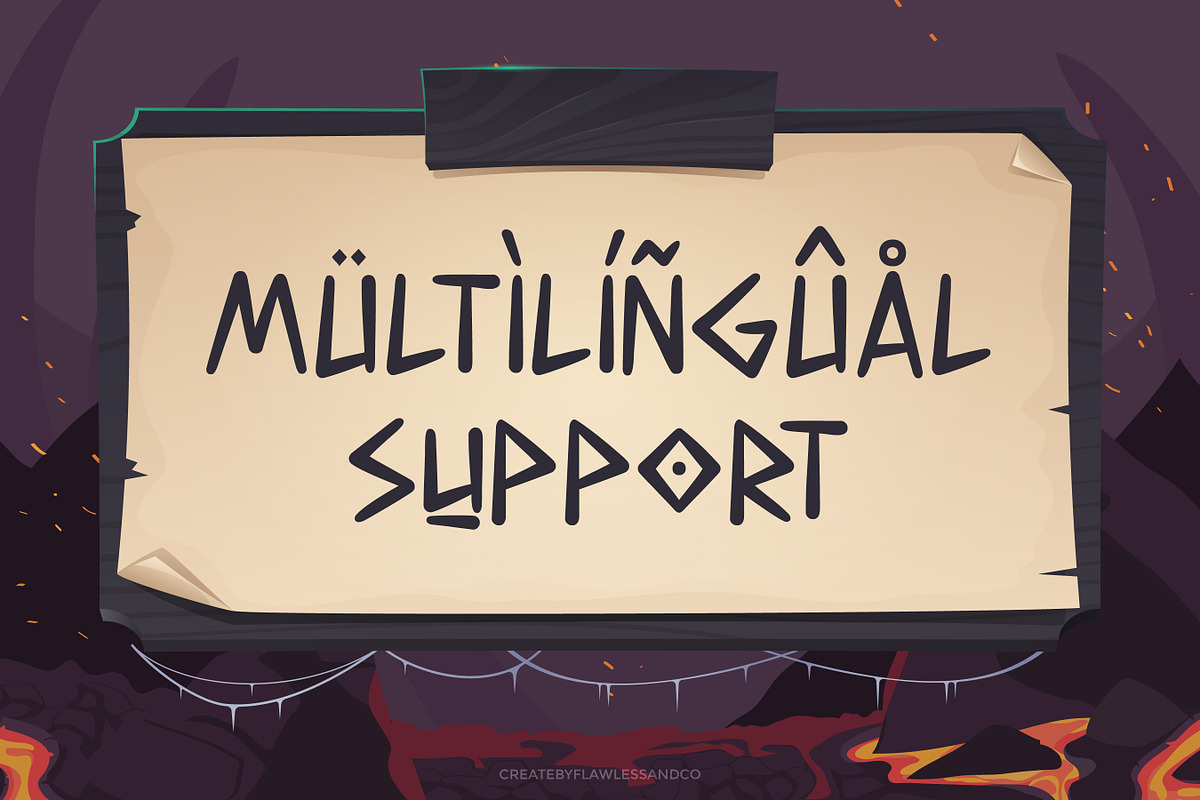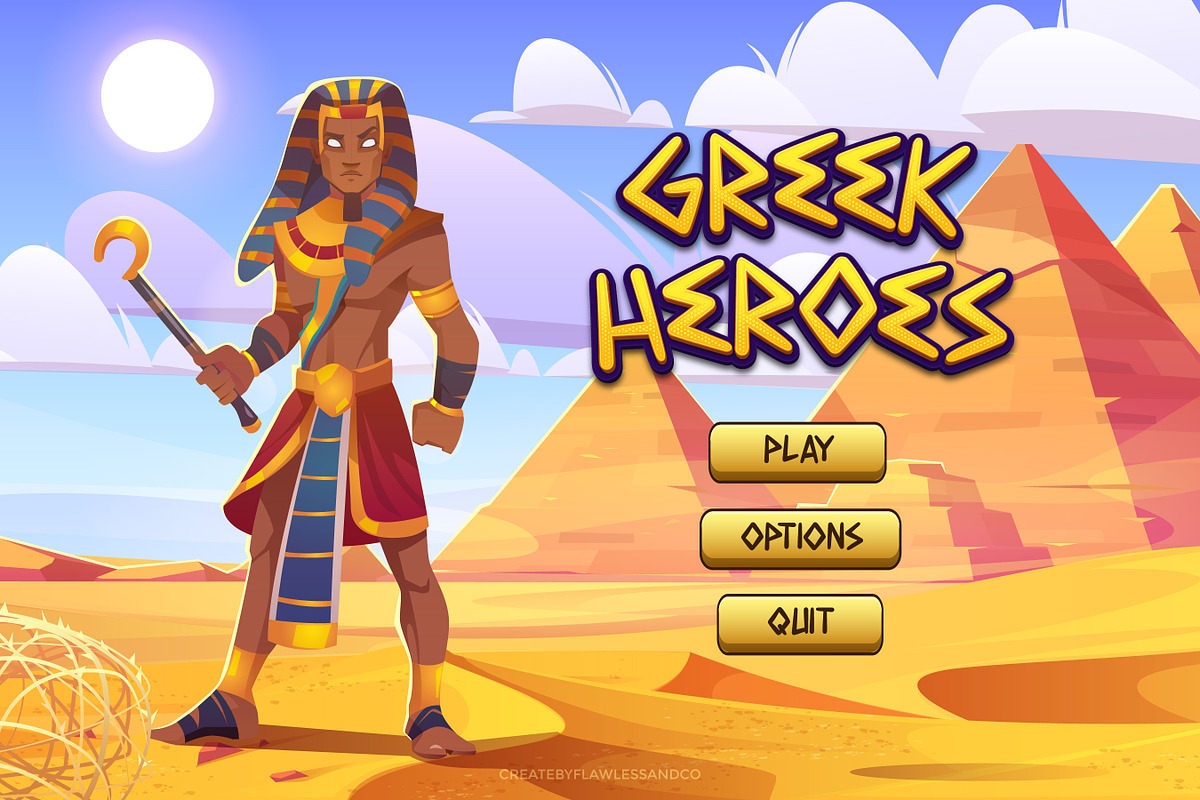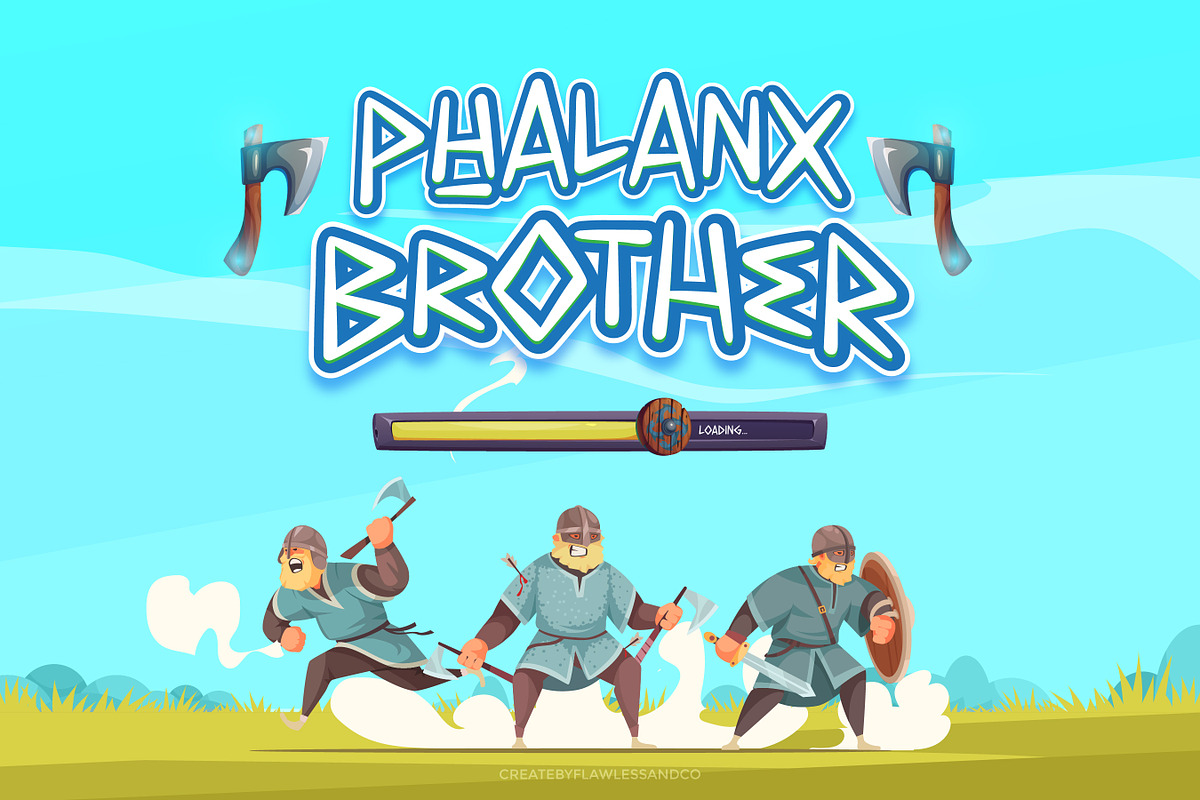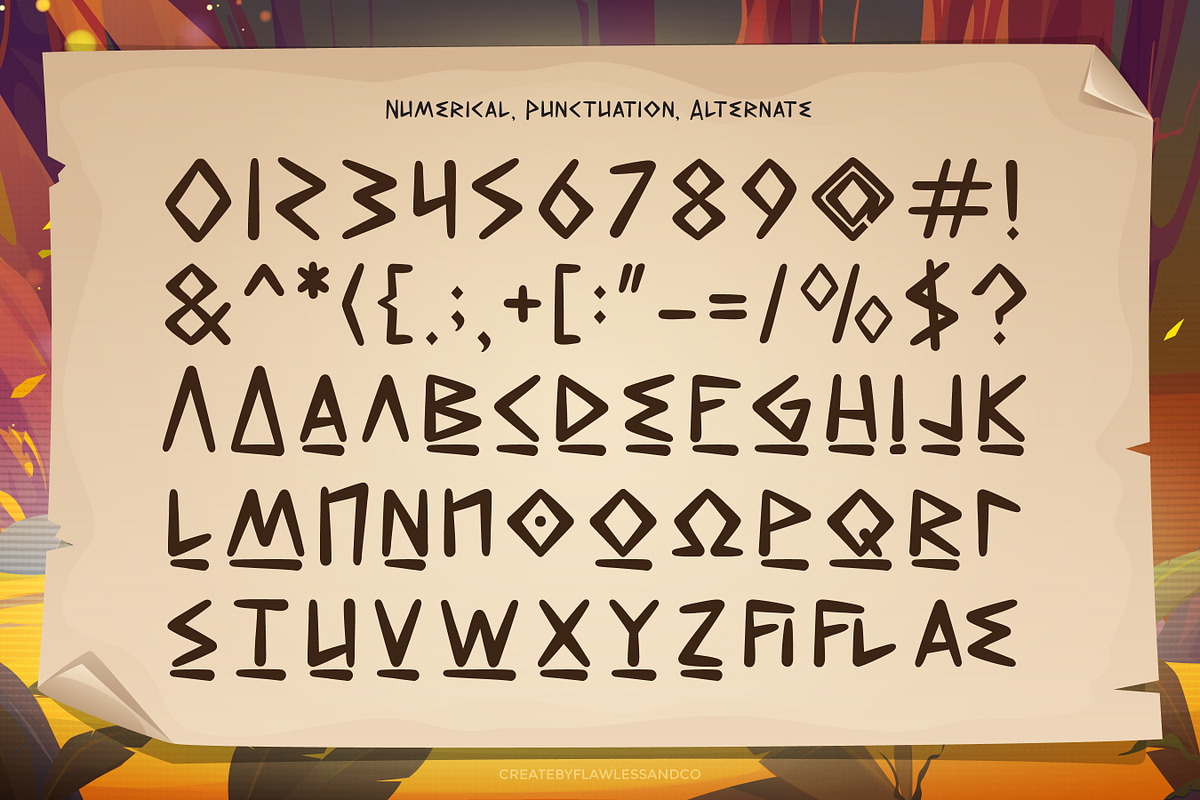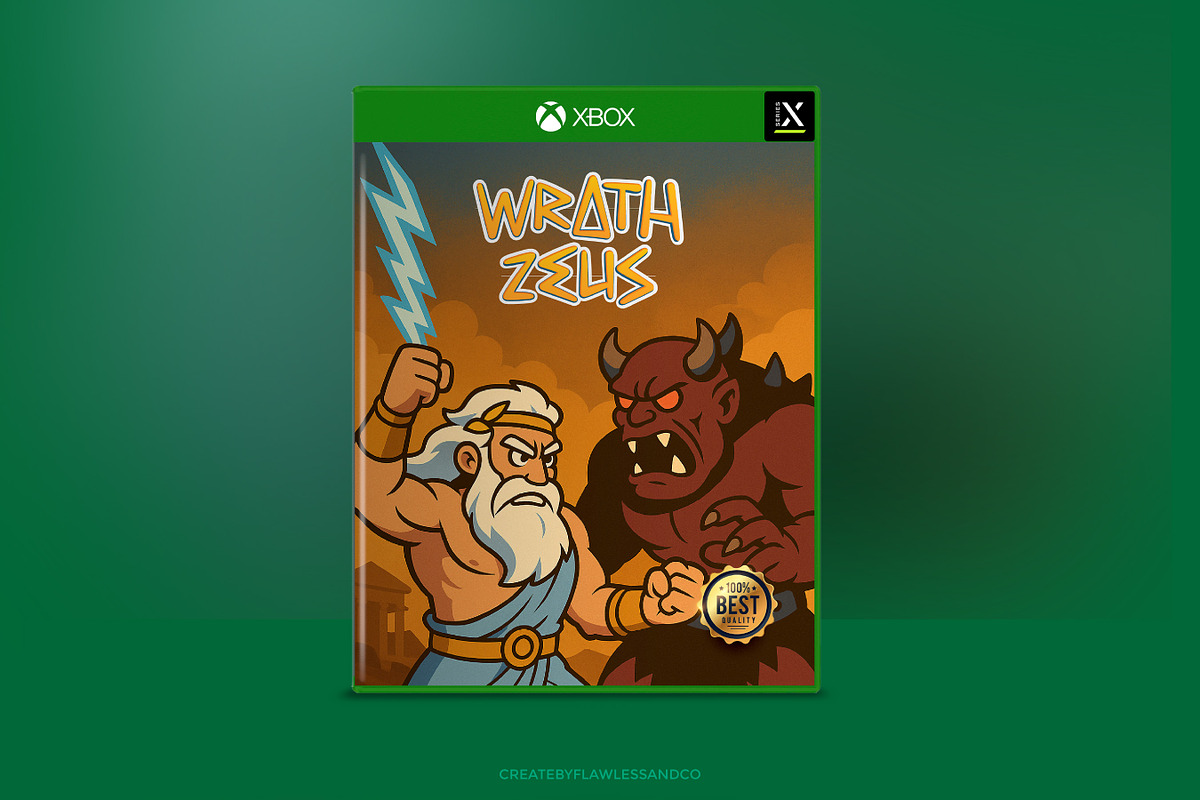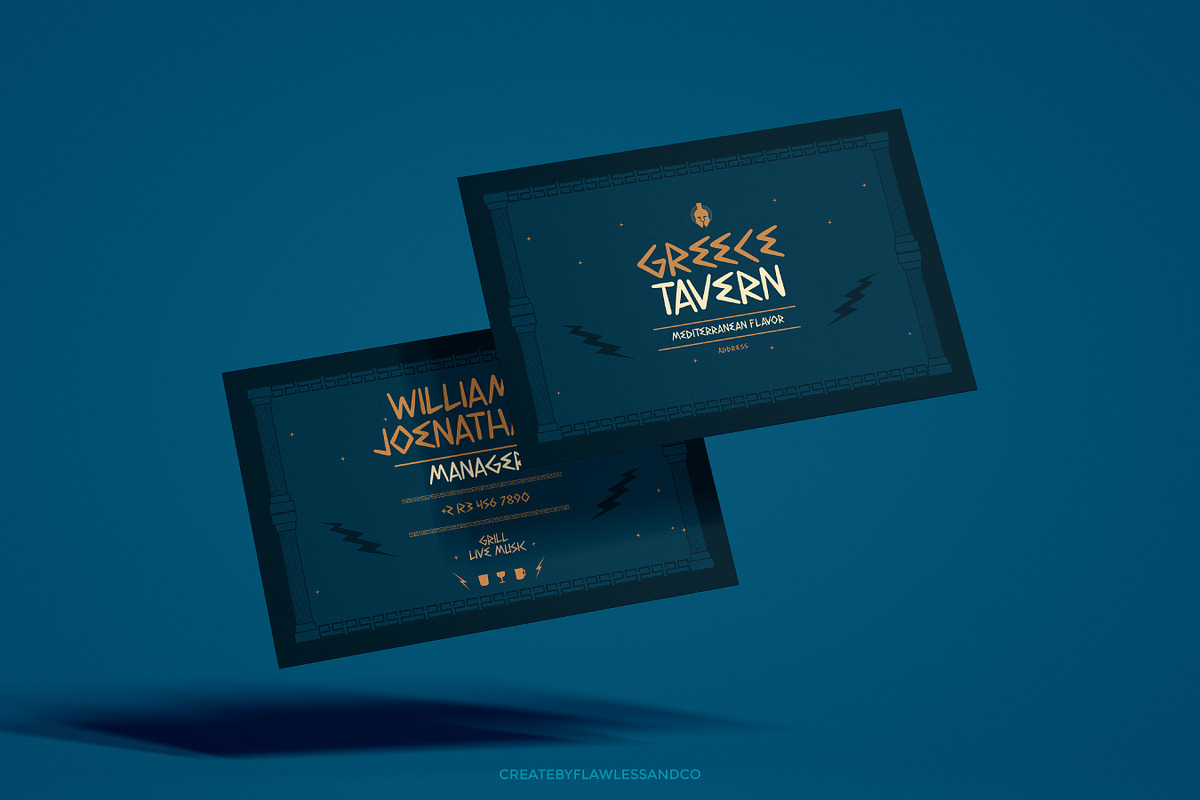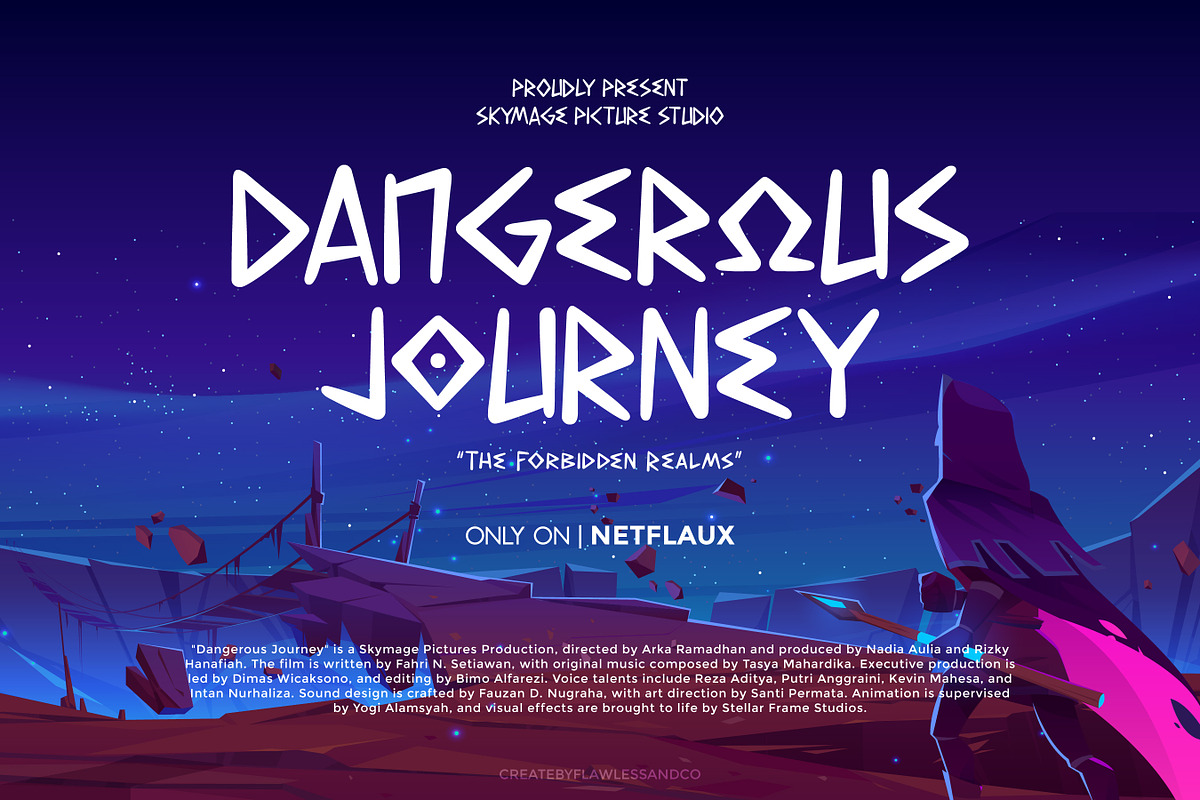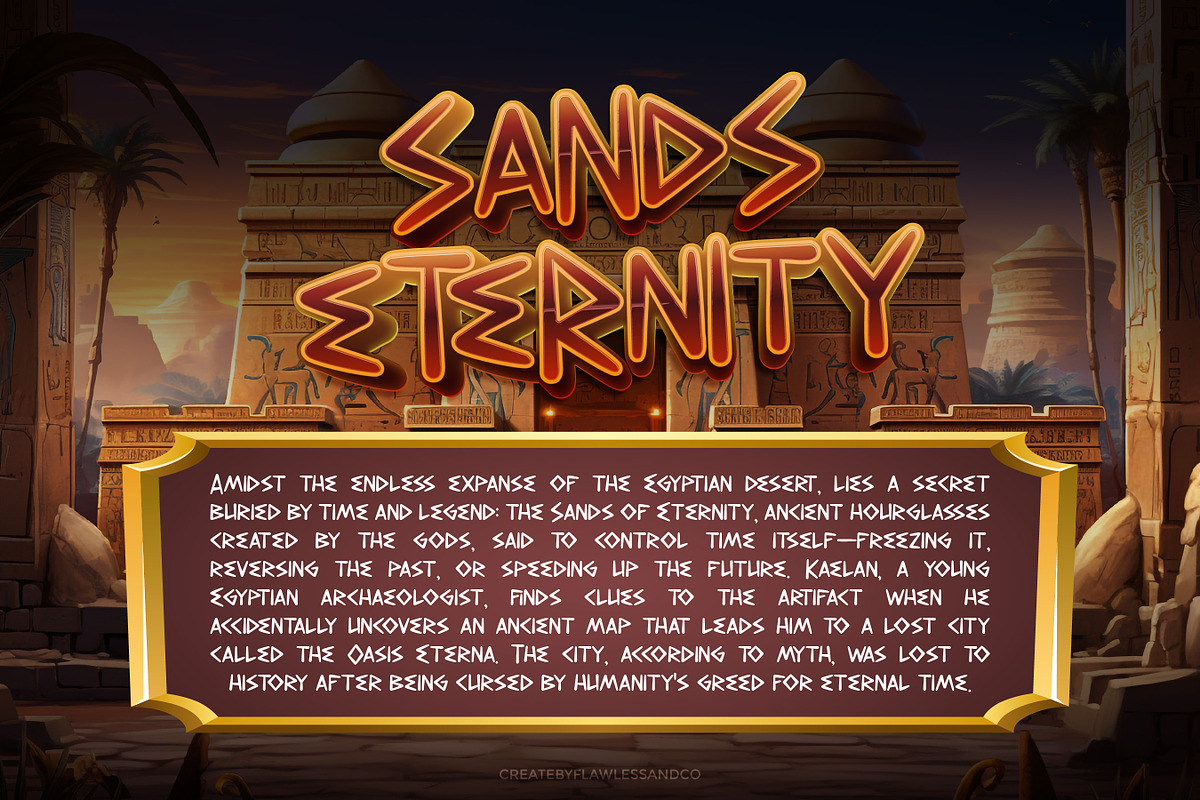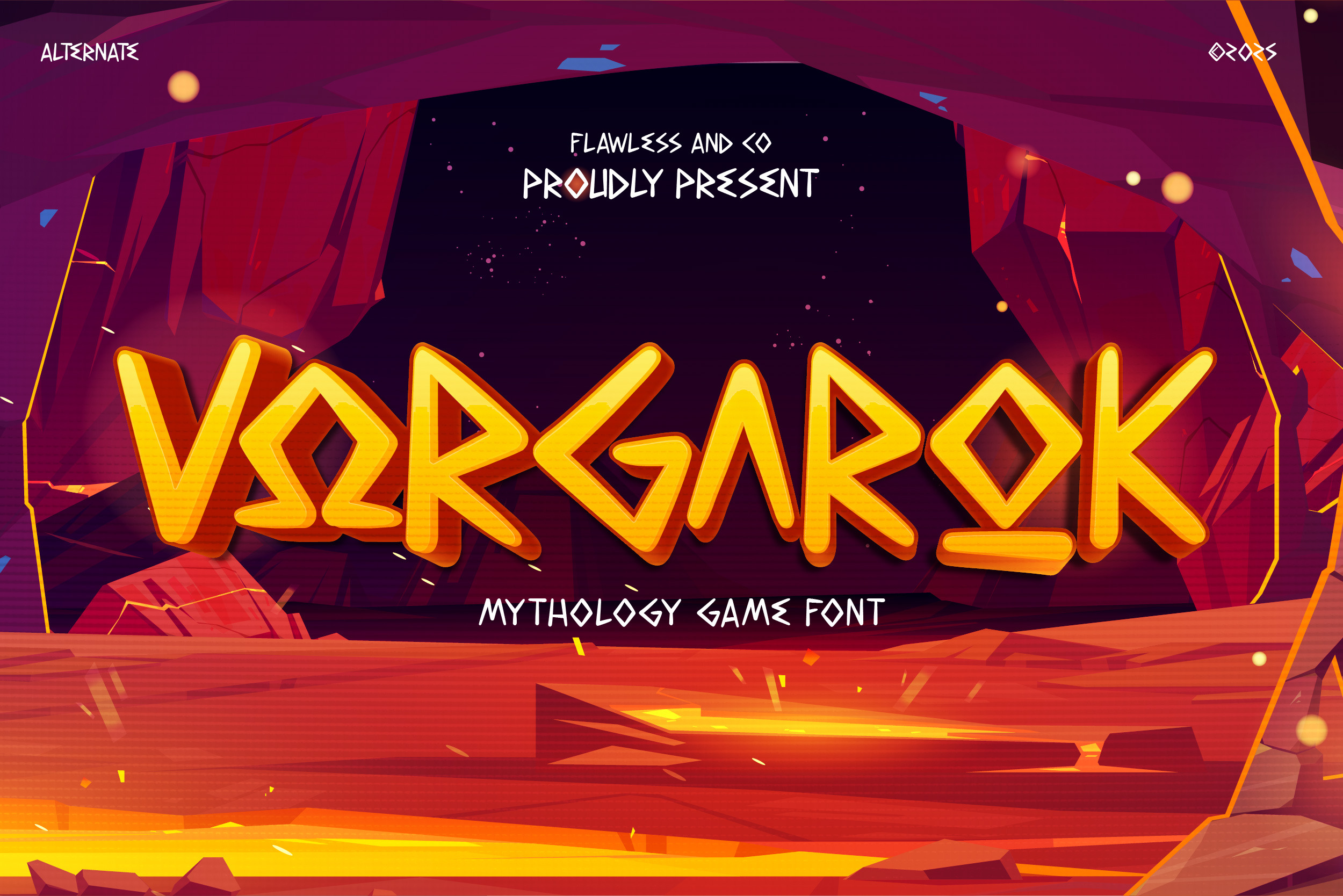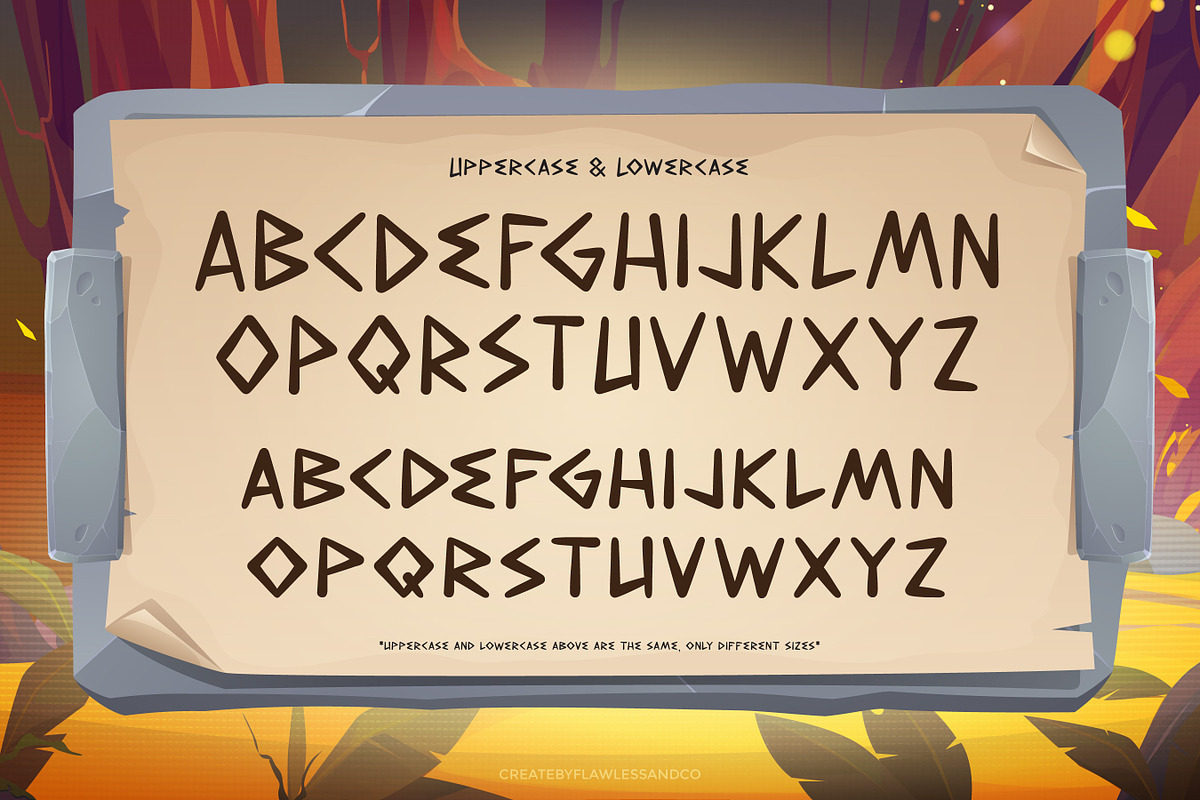
Vorgarok - Game Font
VORGAROK — A Bold Mythology Game Typeface
Step into the fiery legends of ancient realms with Vorgarok, a powerful gaming font inspired by epic mythology and heroic battles. Each letter is sculpted with a bold and mystical design, capturing the essence of mythical adventures, warrior tales, and forgotten gods. Whether you're building a game UI, fantasy logo, or cinematic title, Vorgarok delivers unmatched energy and visual strength.
Who Should Use VORGAROK?
Vorgarok is made for game developers, fantasy illustrators, and designers who crave bold, immersive typography. If your project dives into mythological worlds, ancient battles, or epic storytelling — this font was forged for you. Whether you're crafting a game logo, cinematic title, or fantasy UI, Vorgarok gives your work a legendary edge.
A Must-Have Font for Brand and Logo Creators and Designers
Vorgarok isn’t just a font — it’s a weapon of choice for bold brand builders and visionary logo designers. With its mythological energy and sharp, heroic forms, this typeface commands attention and carves out unforgettable identities. Perfect for anyone looking to build a powerful brand rooted in fantasy, strength, and storytelling.
Why Choose VORGAROK for Gaming Projects?
Vorgarok brings the spirit of ancient legends into the heart of modern gameplay. Its unique glyphs, inspired by mythology and epic quests, give your game titles, menus, and UI a heroic edge.Whether you're building a fantasy RPG, a myth-based strategy game, or a story-driven adventure, Vorgarok helps immerse players in a world of gods, warriors, and ancient powers — all from the first glance.
Suitable For:
- Game titles and in-game UI (menus, pause screens, loading screens)
- Fantasy and mythology-based game branding
- Movie titles and posters with epic or ancient themes
- Twitch and YouTube gaming content (thumbnails, intros, overlays)
- Comic covers and storytelling visuals
- Merchandise: stickers, t-shirts, posters
- Promotional materials for games or fantasy events